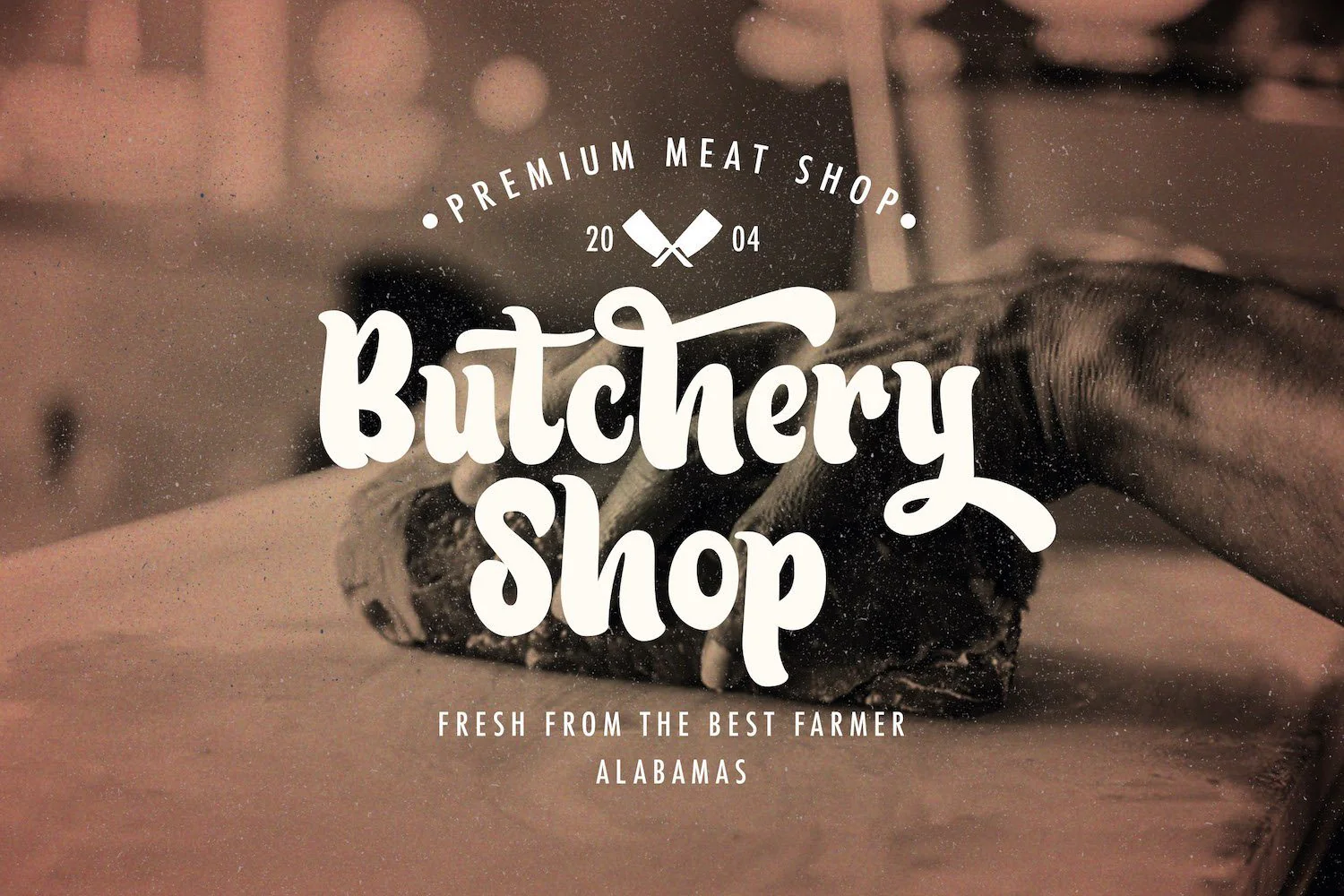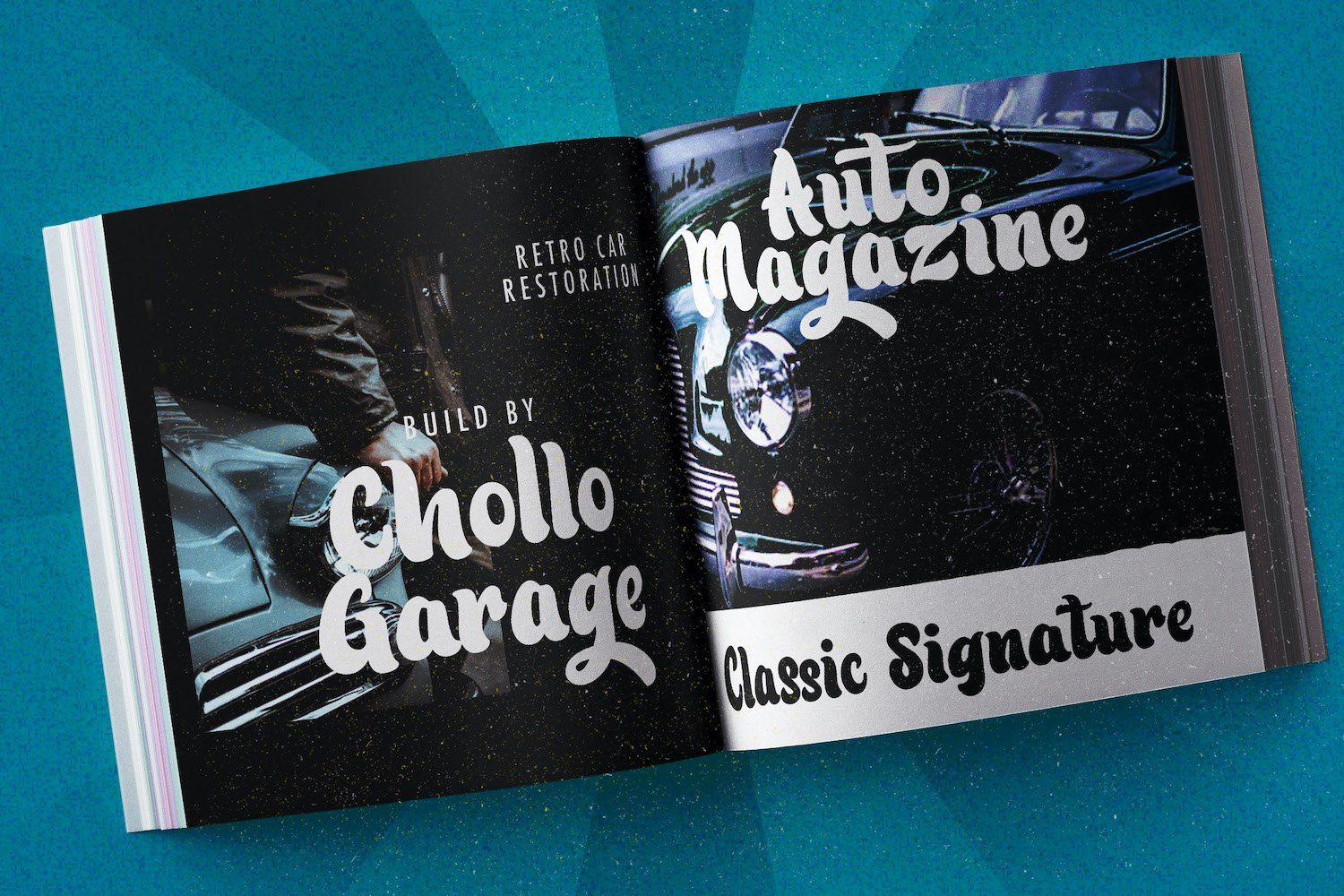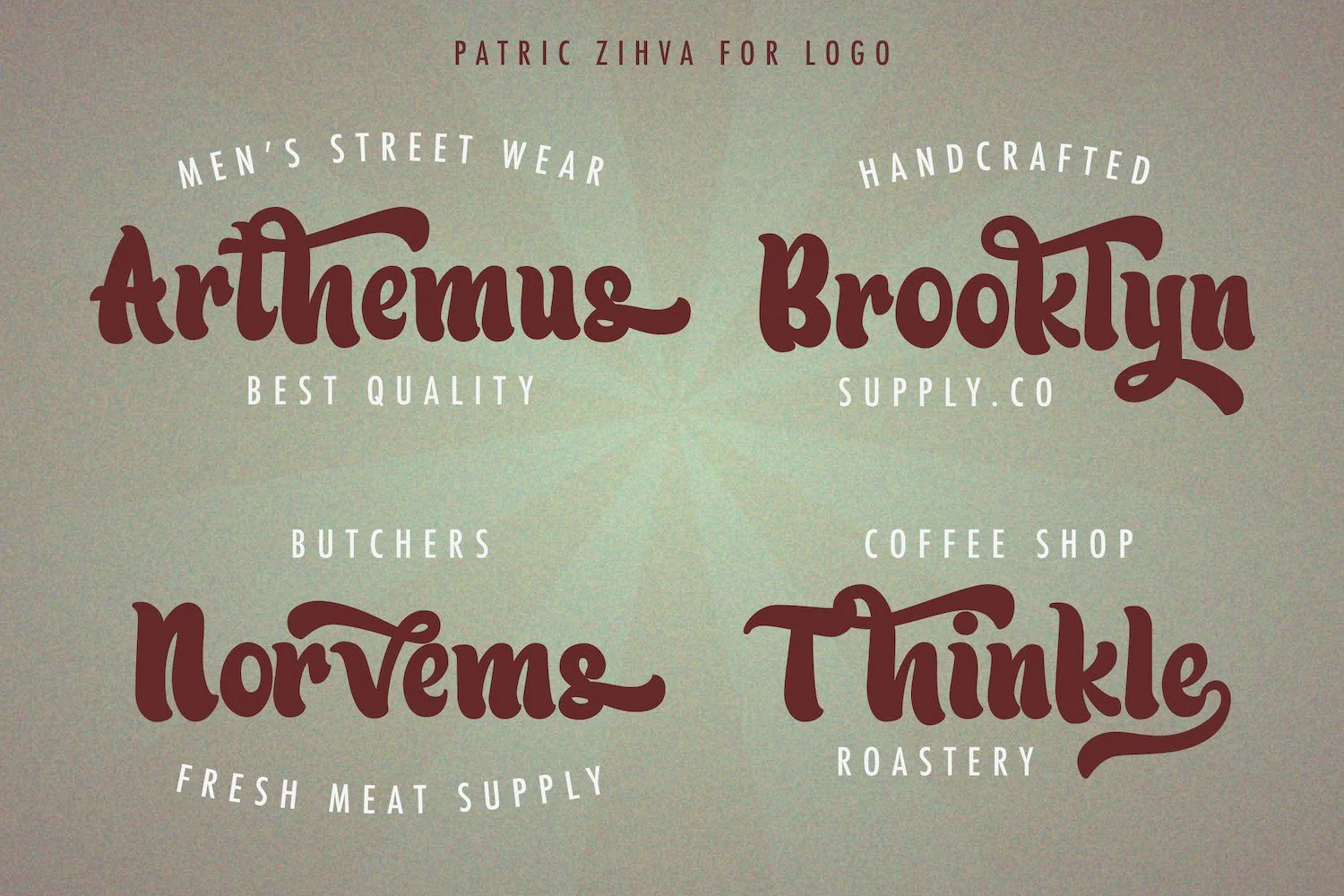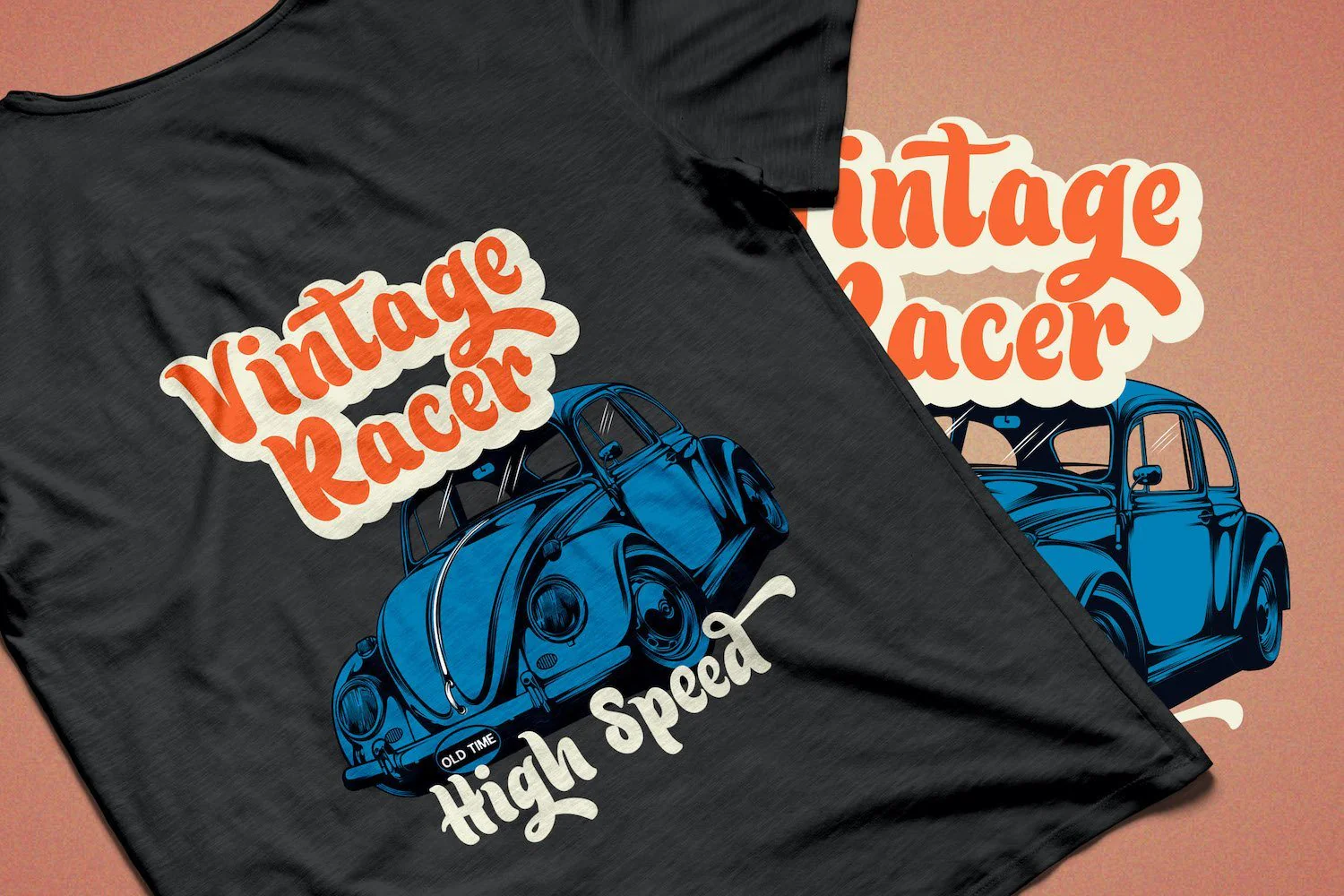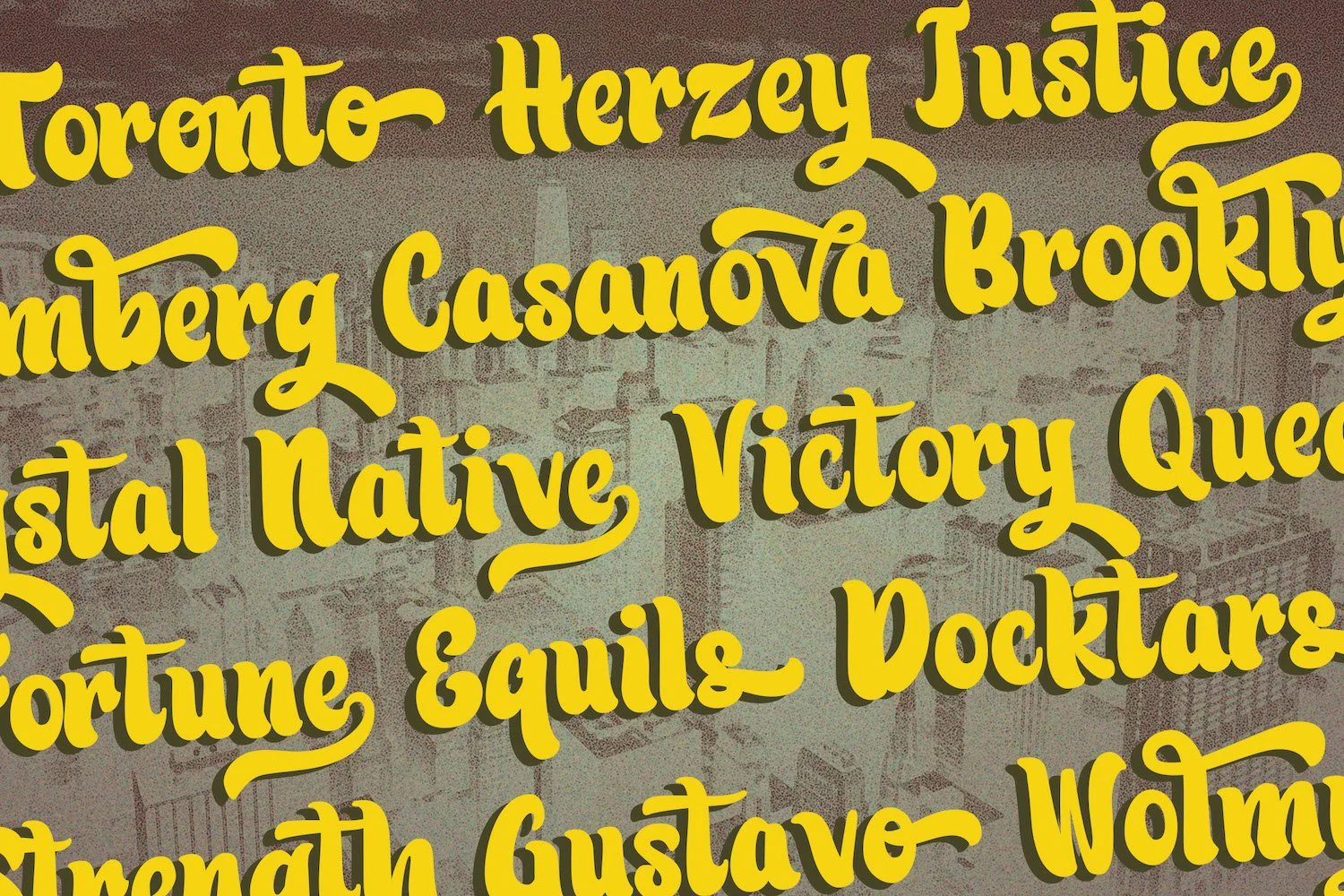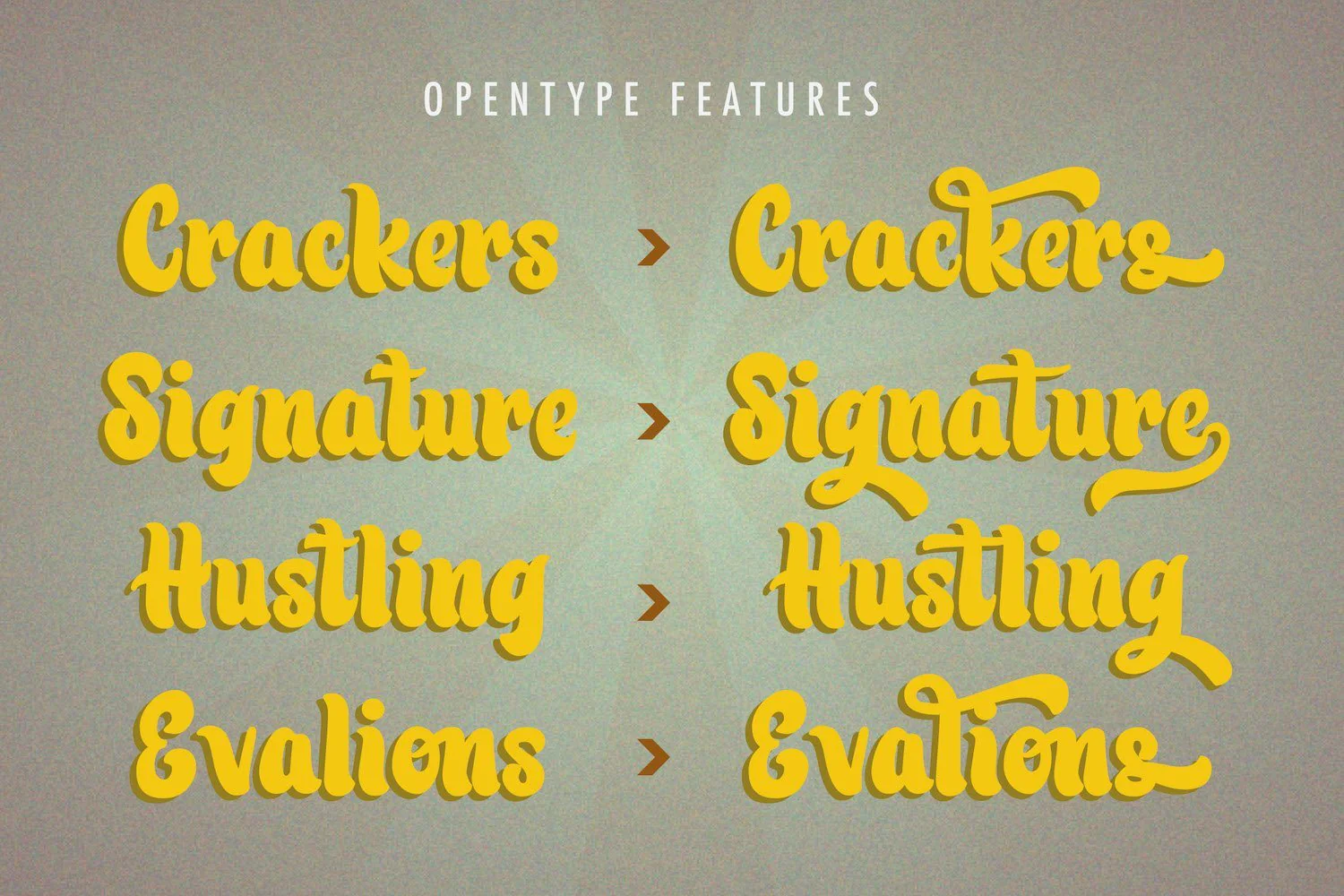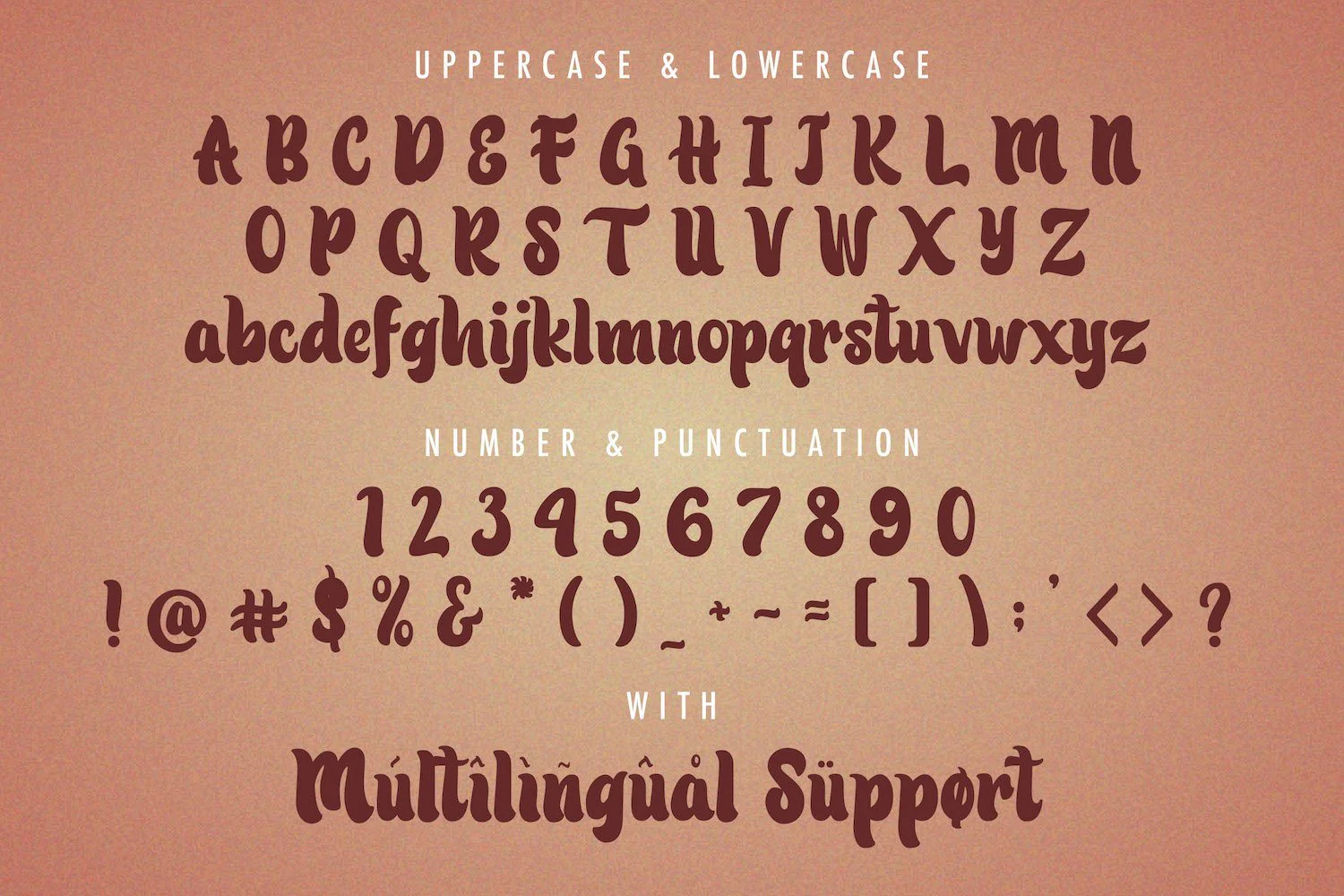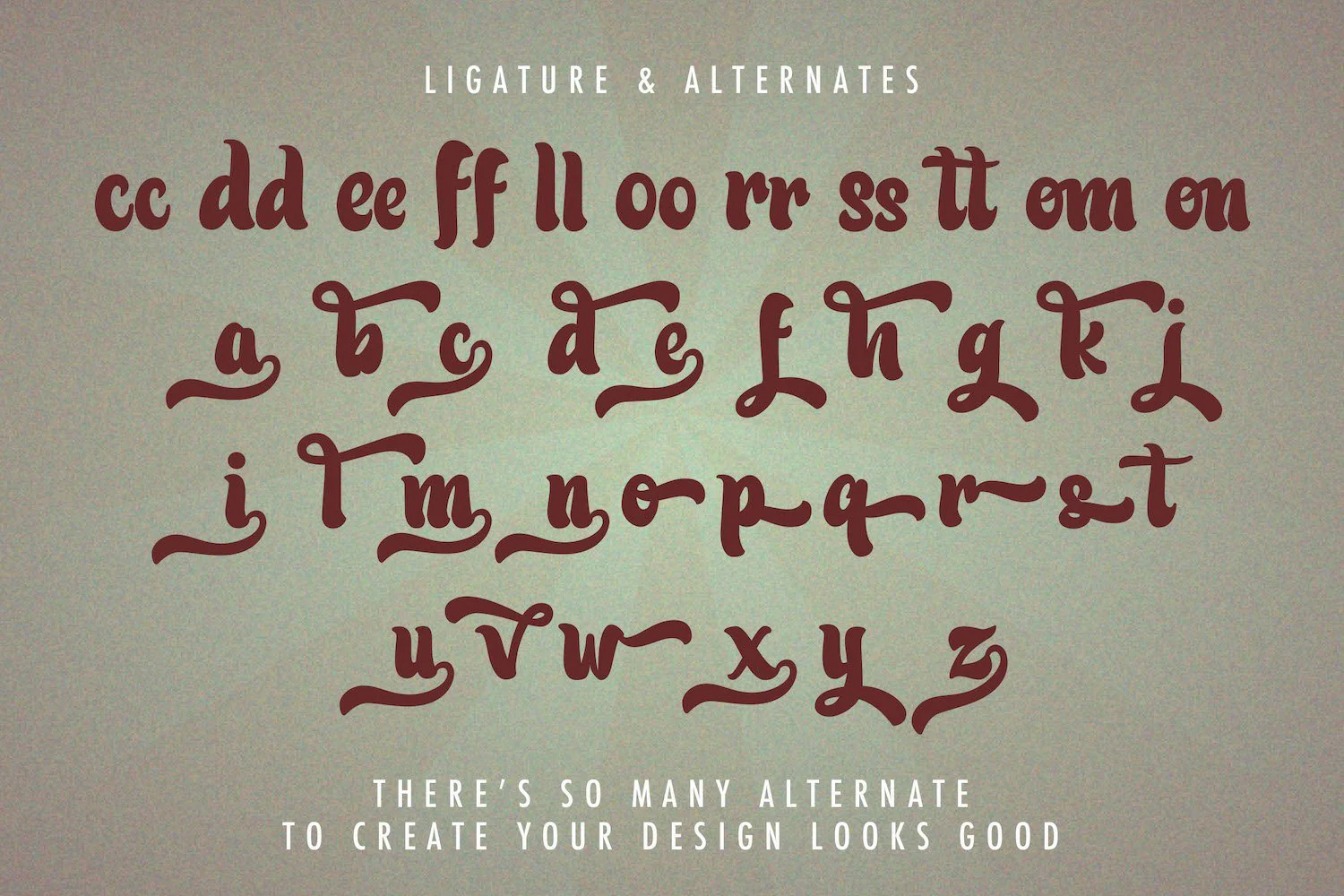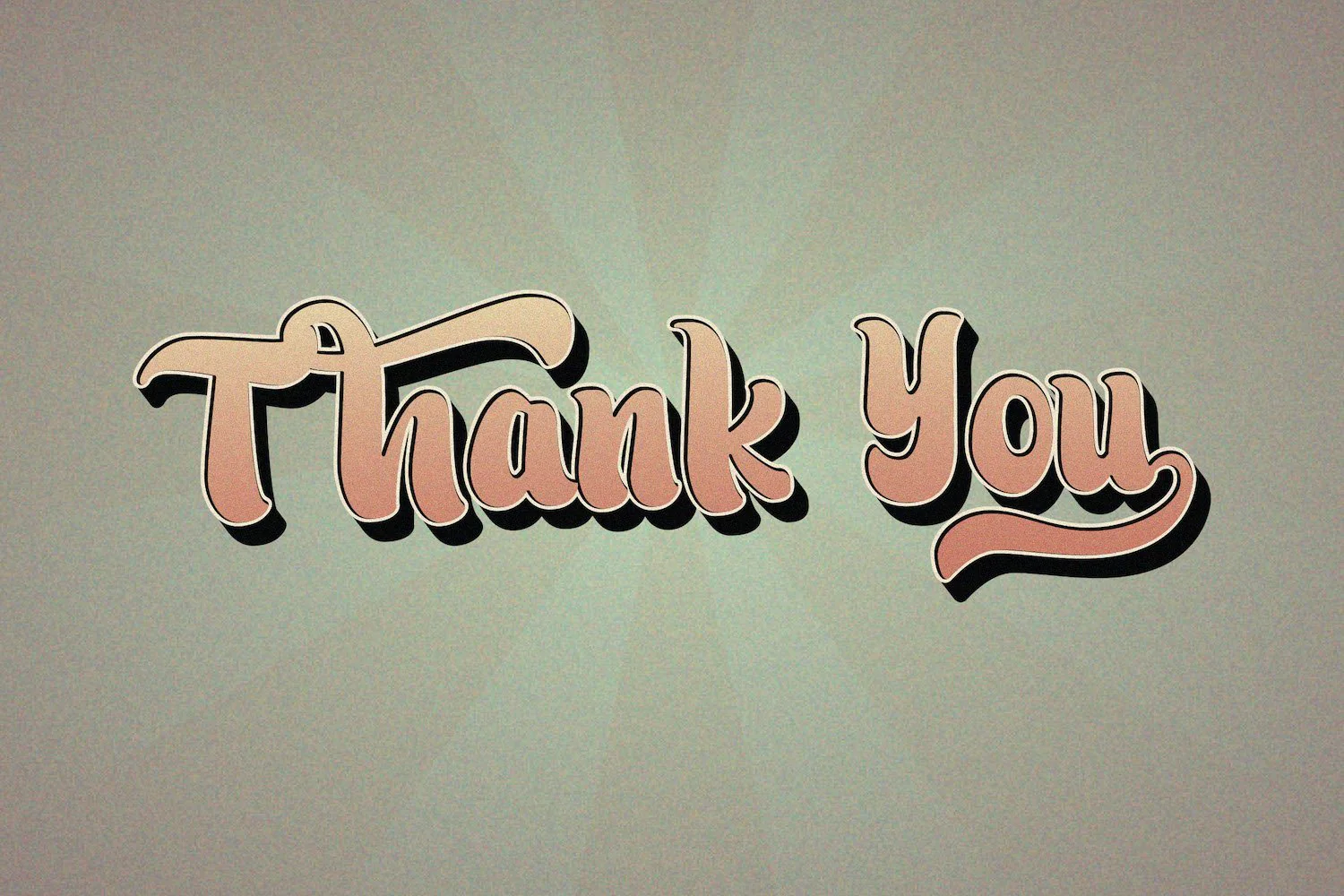
Patric Zihva - Retro Bold Script Font
Introducing Patric Zihva - Retro Bold Script Font
Patric Zihva is a strong and bold script font. It is curved, rounded, and has an unique vintage style, that is perfect for branding. Add it to your most creative ideas and notice how it makes them come alive!